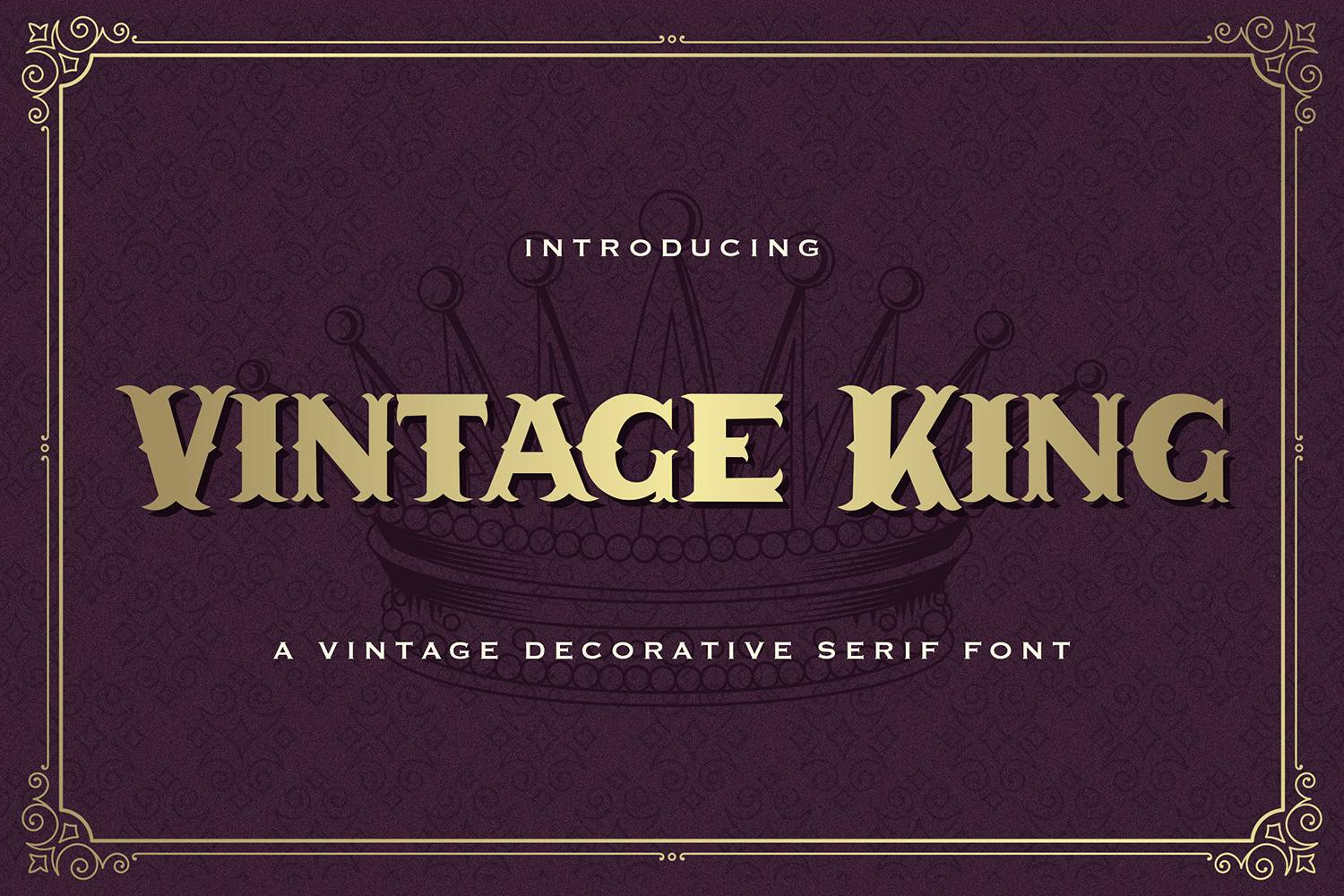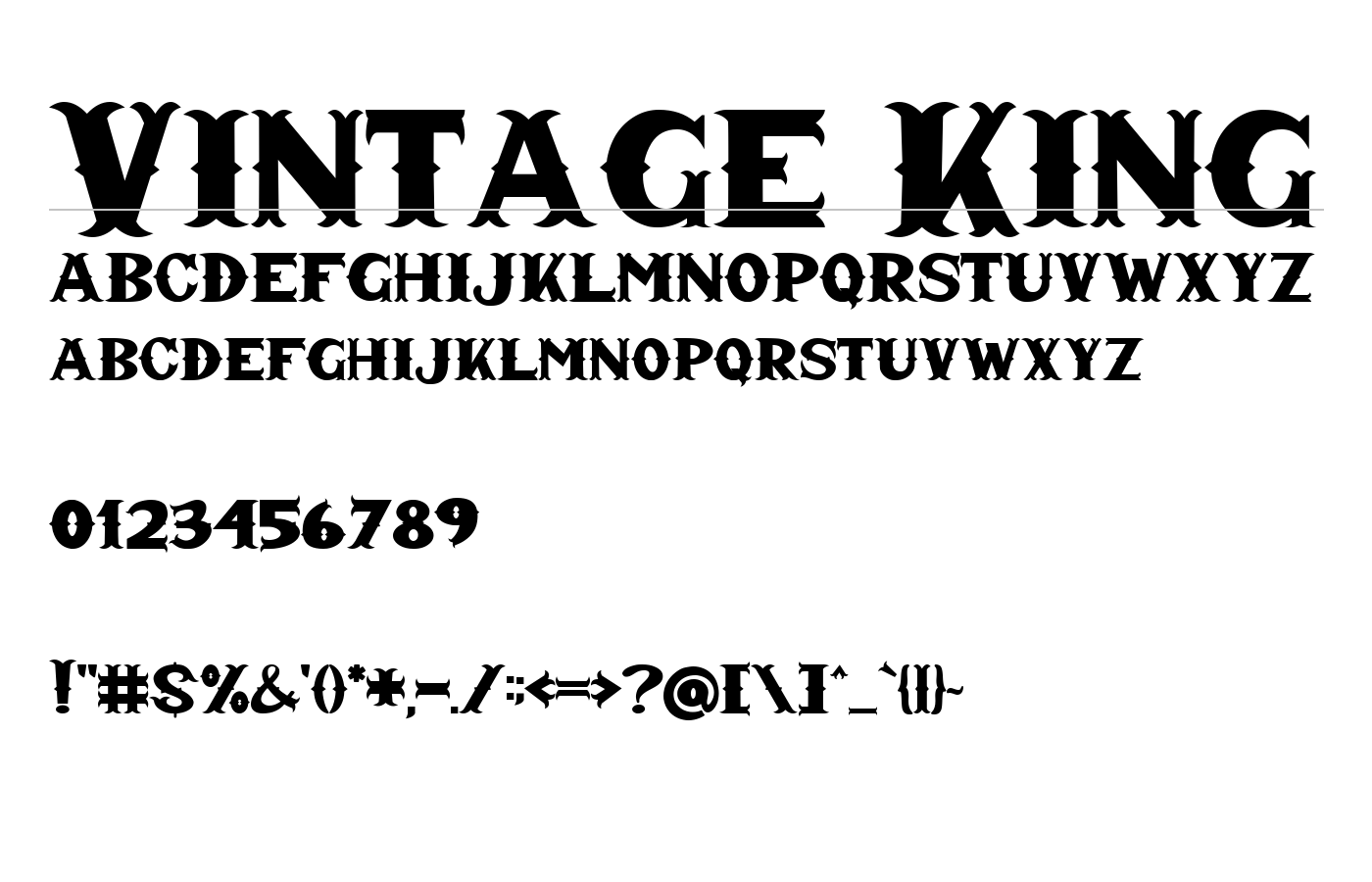
Vintage King is a bold serif font with strong, decorative features that give it a distinctly vintage and western character. Its thick strokes and intricate, sharp serifs lend it a commanding and ornate presence, making it perfect for eye-catching headlines, logos, and branding that seek to evoke a nostalgic or rugged charm. This font works especially well in designs needing a bold, classic style with personality and a historical feel.
Vintage King Font
About Vintage King Font